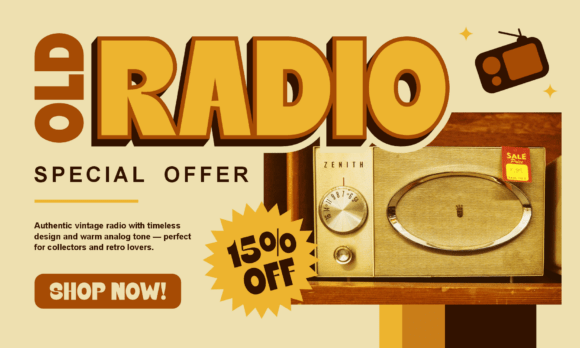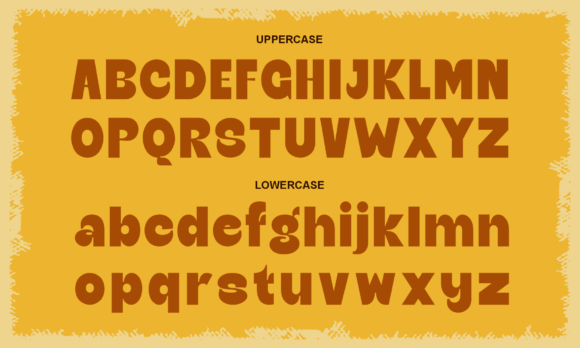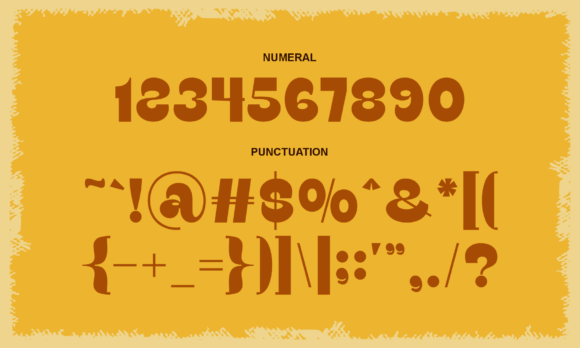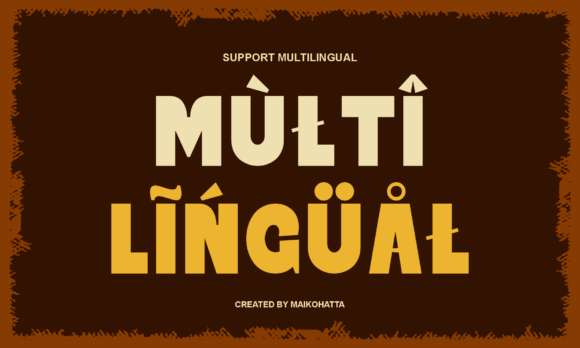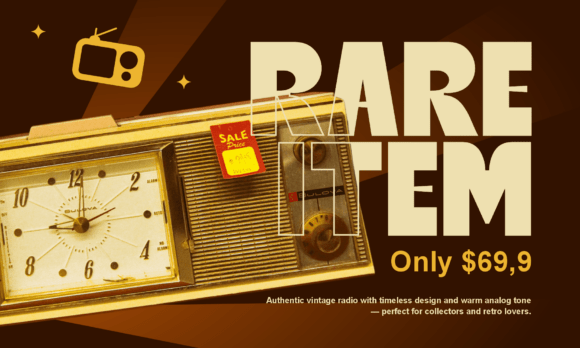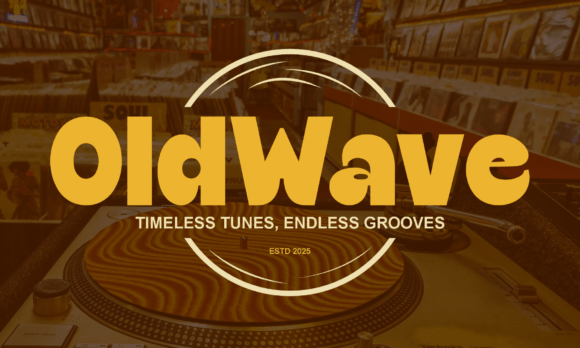
Bined Font: The Ultimate Bold Retro Sans Serif for Designers
In the world of typography, fonts play a crucial role in conveying messages, expressing emotions, and creating brand identities. For designers and crafters, finding the perfect font can be a daunting task. However, if you’re looking for a bold, eye-catching, and confident font, look no further than Bined Font. In this article, we’ll explore the features, benefits, and uses of Bined – Bold Retro Sans Serif Font, and why it’s a must-have for designers and crafters.
What is Bined Font?
Bined Font is a bold retro sans serif font that draws inspiration from vintage poster styles with a modern twist. Its thick, structured letterforms make it perfect for logos, headlines, signage, and packaging. The font’s clean edges and high-impact silhouette give it a nostalgic yet contemporary vibe, making it a go-to display typeface for designers.
Key Features of Bined Font
- Bold and Confident: Bined Font is designed to make a statement. Its bold and confident letterforms ensure that your message gets noticed.
- Retro yet Modern: The font’s vintage inspiration is combined with a modern twist, making it perfect for designers seeking a nostalgic yet contemporary look.
- Clean Edges: Bined Font features clean edges and a high-impact silhouette, making it perfect for logos, headlines, and signage.
Bined Font is versatile and can be used for a variety of design projects, including:
- Logos: Create a bold and confident logo that makes a statement.
- Headlines: Use Bined Font to create attention-grabbing headlines that draw the reader’s attention.
- Posters: Add a touch of nostalgia and modernity to your posters with Bined Font.
- Packaging: Make your packaging stand out with Bined Font’s bold and eye-catching letterforms.
- Branding: Use Bined Font to create a consistent brand identity that exudes confidence and style.
- Editorial Designs: Add a touch of sophistication and elegance to your editorial designs with Bined Font.
Benefits of Using Bined Font
Using Bined Font offers several benefits, including:
- Instant Recognition: Bined Font’s bold and confident letterforms ensure instant recognition and attention.
- Versatility: The font can be used for a variety of design projects, from logos to editorial designs.
Tips for Using Bined Font Effectively
To get the most out of Bined Font, follow these tips:
- Use it Boldly: Bined Font is designed to make a statement, so use it boldly and confidently.
- Experiment with Colors: Try out different colors and combinations to find the perfect look for your design.
- Mix and Match: Combine Bined Font with other fonts to create a unique and interesting look.
- Pay Attention to Kerning: Make sure to adjust the kerning to ensure that the letterforms look balanced and visually appealing.
In conclusion, Bined Font is a bold, confident, and eye-catching font that’s perfect for designers and crafters. Its retro yet modern vibe, clean edges, and high-impact silhouette make it a go-to display typeface for various design projects. With its PUA-encoded feature, ease of use, and versatility, Bined Font is a must-have for any designer or crafter looking to add a touch of style and sophistication to their designs.